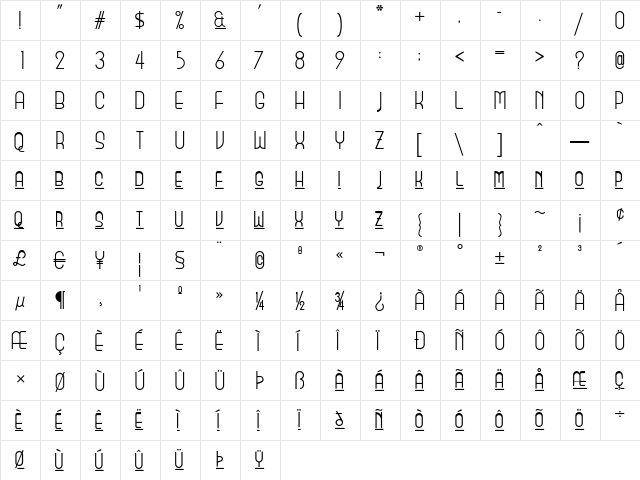
BeautySchoolDropout Regular
Design Context for BeautySchoolDropout Typeface
BeautySchoolDropout offers clean, dependable letterforms without strong stylistic allegiance, making it a practical choice for designers who need flexibility.